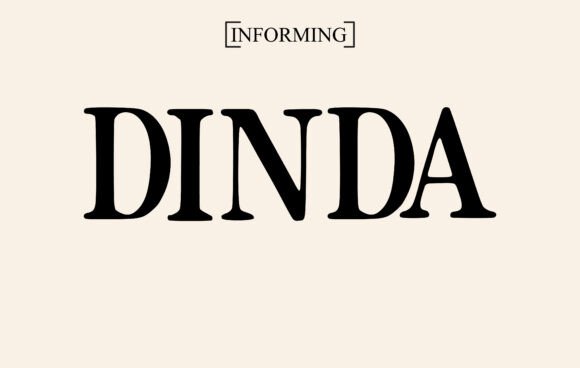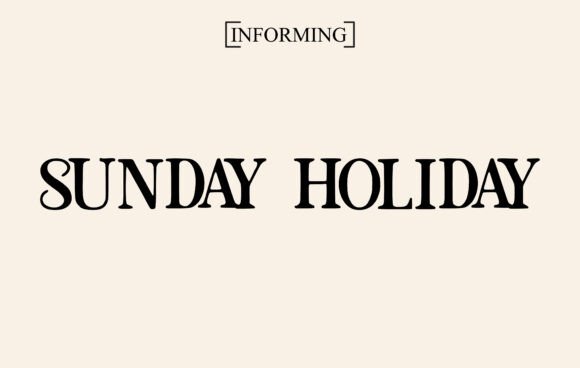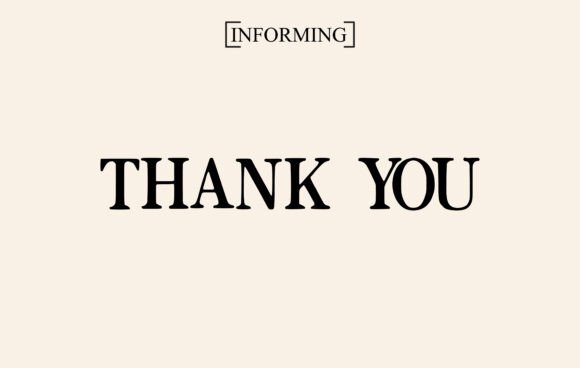
Dinda Font: An Elegant Serif Typography for Modern Branding
About the Dinda Font
Elevate your designs with Dinda Font, a font that combines sophistication with readability. Dinda Expertly designed to be a true favorite, this font has the potential to take your creative ideas to the highest level
This font is legible and looks great as a title or body text. This font would be perfect for many different designs for magazine headlines, t-shirt,social media, branding, wedding invitations, cards, etc.
Dinda’s legibility makes it suitable for headlines, short-form text in branding materials, and even select packaging applications where impact is key. However, its slightly decorative nature makes it less ideal for lengthy body copy or UI elements requiring high readability at small sizes.
Its personality is best described as modern and elegant, lending itself well to projects needing a sophisticated yet approachable feel. Brands seeking to convey a sense of luxury, quality craftsmanship, or refined simplicity would find Dinda a strong asset.
Pairing Dinda with a clean sans-serif like Lato for body text or a geometric sans-serif like Futura for a more modern feel will create a balanced and visually appealing design. For a touch of contrast, a delicate script font could add a hint of handwritten warmth to invitations or branding projects using Dinda as a headline font.